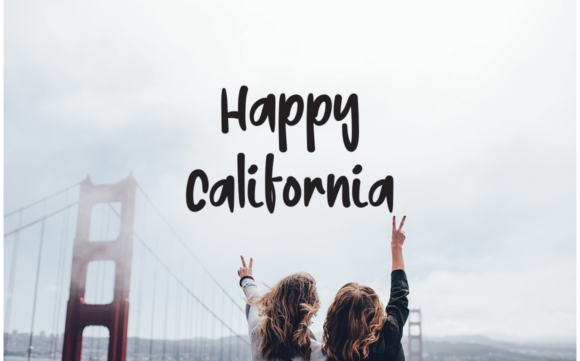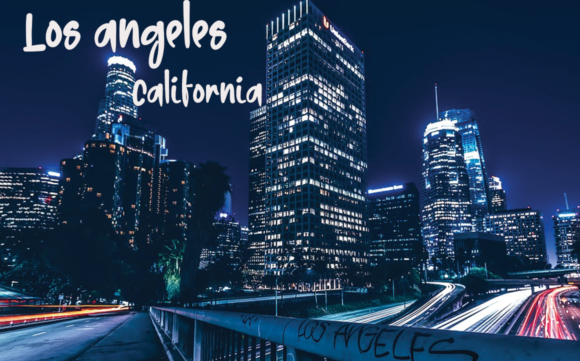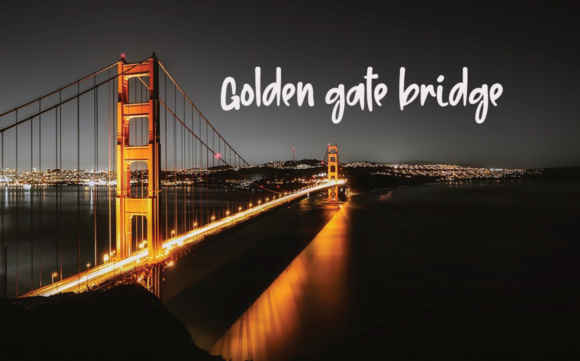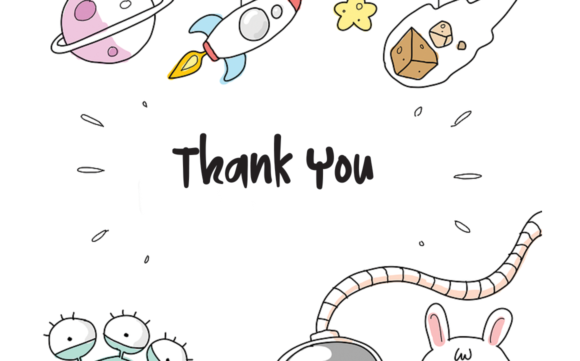
Embracing the Sunshine State of Typography
As a designer, have you ever found yourself stuck in a creative rut, searching for that perfect font to bring your project to life? I know I have! It’s like hitting a roadblock on the Pacific Coast Highway, and you need a scenic detour to get your inspiration flowing again. That’s where the I Love California Font comes in – a charming, handwritten font that’s as laid-back as a California sunset.
| 📌 Product Name | I Love California Font |
| 👤 Author | Garcio |
This stylish font is perfect for adding a personal touch to your designs, from wedding invitations to travel brochures. Its well-rounded characters and cursive style make it a versatile choice for any project. Whether you’re a seasoned designer or just starting out, the I Love California Font is a valuable addition to your typography toolkit. In this article, we’ll dive deeper into the features and benefits of this lovely font, and explore why it’s a must-have for designers who love the Golden State of California.
I Love California Font Key Features
- Unique Characteristics: Features a unique, hand-drawn design with a distressed texture, giving it a vintage and laid-back feel
- Language Support: Supports a wide range of languages, including Latin, Cyrillic, and Greek
- Font Style: Includes multiple font styles, including Regular, Italic, Bold, and Bold Italic
I Love California Font Review
At first glance, I was drawn to the whimsical and playful vibe of the “I Love California” font. It’s a great choice for those looking to add a touch of California charm to their designs ✨. The font’s cursive script is reminiscent of vintage signage, which makes it perfect for retro-themed projects or anything related to the Golden State.
- The font’s custom illustrations and icons are a nice touch, adding a unique element to the design ✨.
- The font is highly customizable, allowing users to adjust the color, size, and style to fit their project’s needs ✨.
However, there are some limitations to consider ⚠️. The font may not be suitable for formal or professional projects due to its playful nature. Additionally, some characters may not be as legible as others, which could be a concern for readers with vision impairments ⚠️.
Overall, I think the “I Love California” font is a great choice for designers looking to add a fun and carefree vibe to their projects. While it may not be the best option for every project, it’s definitely worth considering for those looking for a unique and California-inspired font.
Use the I Love California Font to add a touch of California charm to your designs. Pair it with other fonts to create a unique and eye-catching look. Experiment with different font sizes and styles to add emphasis to your text.
The I Love California Font is perfect for designs related to California, such as travel brochures, tourism websites, and California-themed merchandise. It’s also great for creating a fun and casual vibe in designs like social media graphics, blog posts, and advertisements.